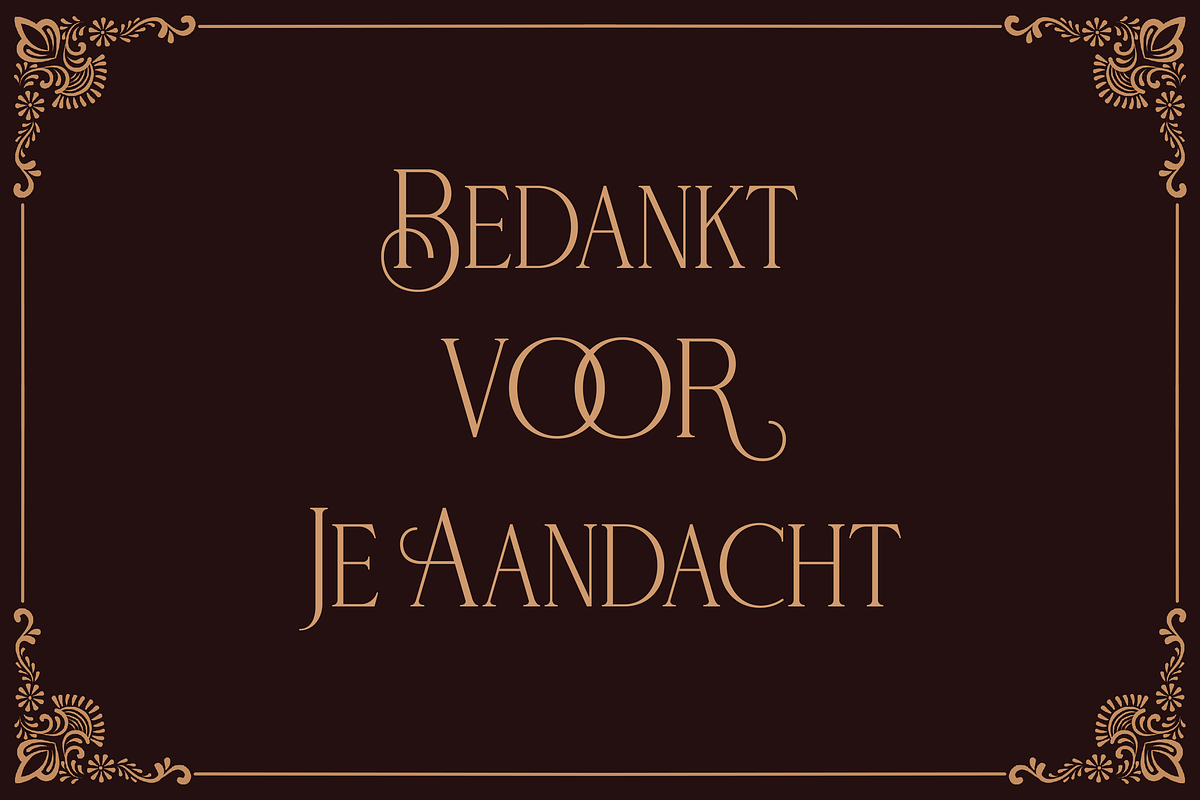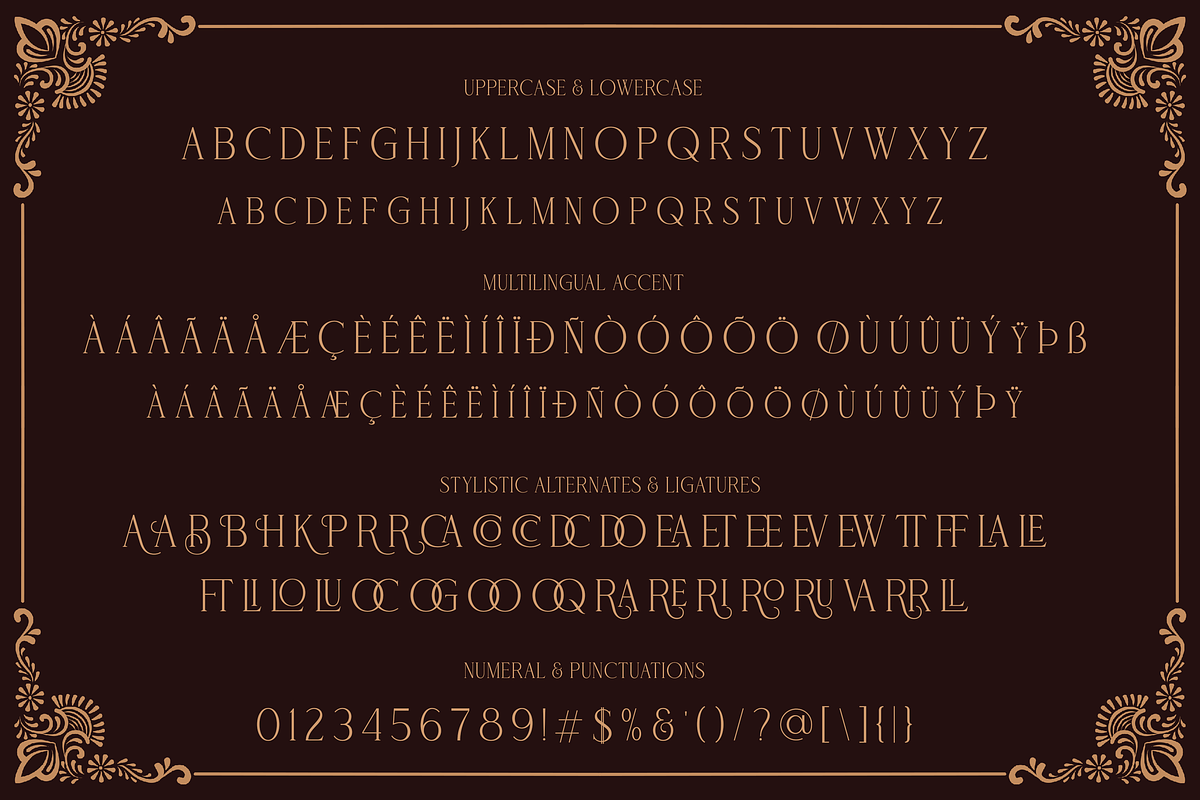
NEVOCLARA is a Modern Vintage font with beautiful ligatures,with special alternative glyphs, and multilingual support. inspired by the decorative arts and architecture movement that originated in the 1920s and developed into a major style in the Western European United States during the 1930s.
NEVOCLARA includes luxury fonts that are made individually and carefully produced, the aim is to create a quality and elegance that is sleek and semi-modern that symbolizes the glory and sophistication of vintage. It combines modernist style with good craftsmanship.
NEVOCLARA is perfect for your project and allows you to create designs, headlines, posters, logos, badges, t-shirts and many more that are beautiful. It is also best used for posts, logos, posters, certificates, labels and more.
- Uppercase & Lowercase (Different sizes)
- Stylistic Alternates & Ligatures
- Multiple Languages Supported